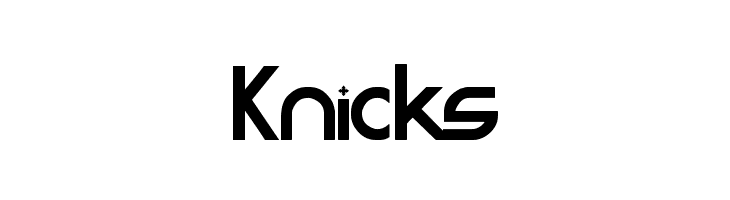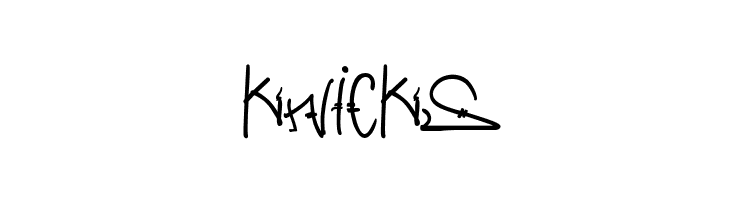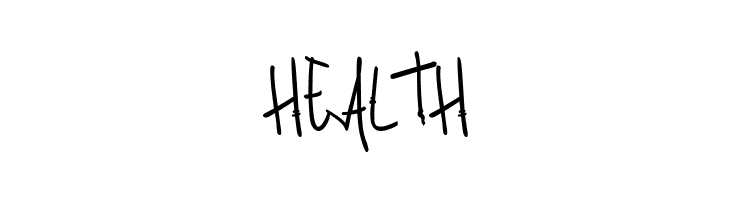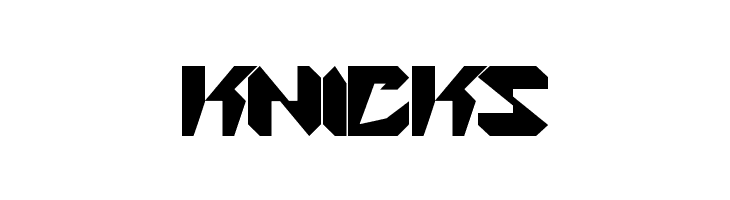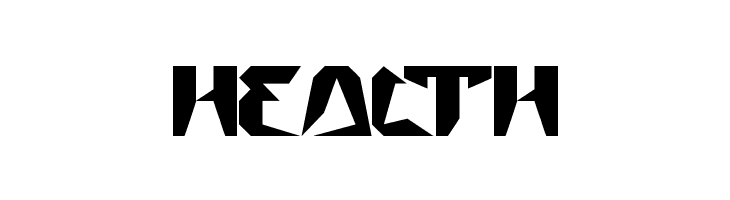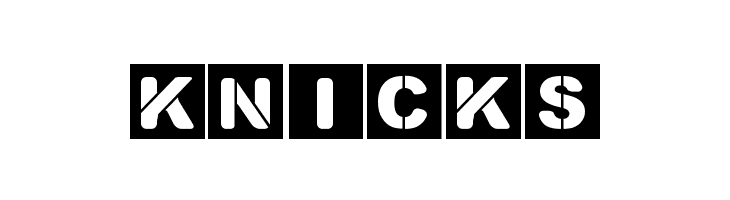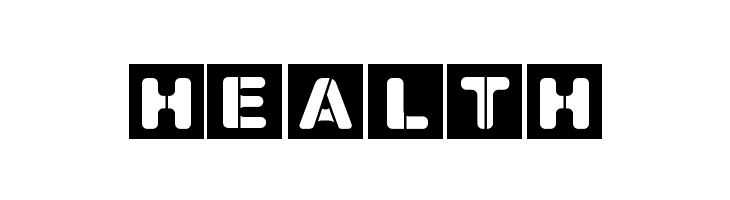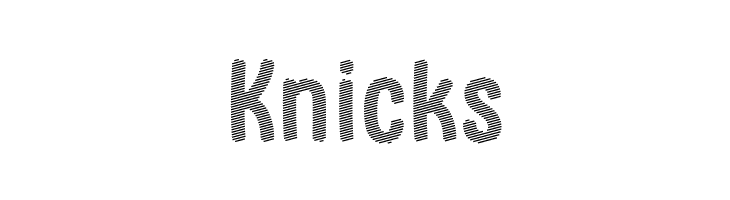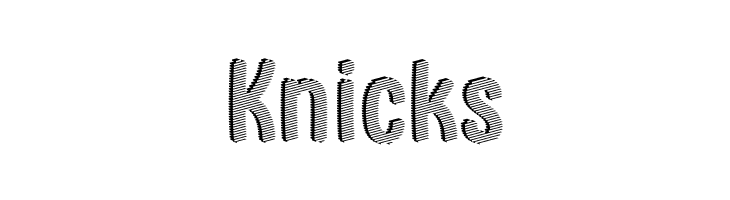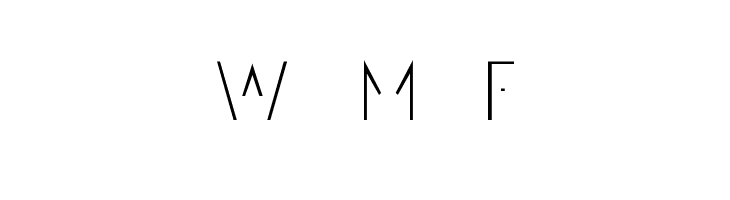
• Strange Magic Shad
A bold, playful font with a hand-drawn, shadowed style.
• strangferfixcs
A modern, geometric font with bold lines and a futuristic style.
• StrawberryLongcake
A whimsical, heart-embellished decorative font with a playful, hand-drawn style.
• street
A bold, angular font with sharp, geometric edges for a modern, edgy look.
• Street Of Zeus
( Fonts by Si Panji )
A bold, graffiti-inspired font with sharp, angular lines and dynamic style.
• Street Stencil
Bold, stencil-inspired font with geometric shapes and a street art vibe.
• Stripe October Seven
( 7NTypes - Situjuh Nazara - 7ntypes.com )
A bold, decorative font with a unique diagonal striped pattern.
• Stripe Shadow October Seven
( 7NTypes - Situjuh Nazara - 7ntypes.com )
A bold, striped shadow font with a playful, three-dimensional look.
• Strokeless
A bold, playful font with a three-dimensional, hand-drawn style.